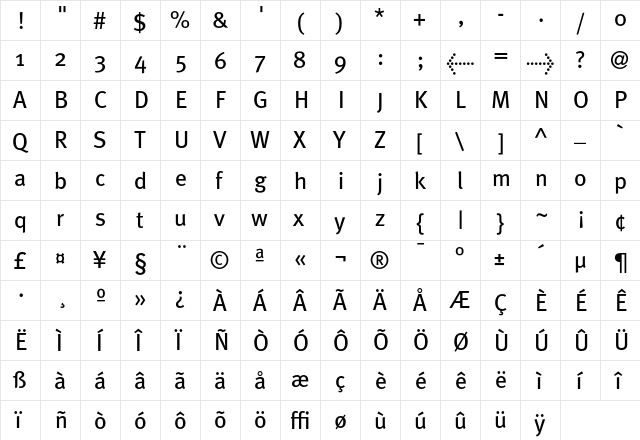
MetaPlusBook- Roman
Design Context for MetaPlusBook- Typeface
MetaPlusBook- offers clean, dependable letterforms without strong stylistic allegiance, making it a practical choice for designers who need flexibility.
Pro Tip: Pair MetaPlusBook- with a font of contrasting weight or personality to build a more expressive typographic hierarchy.